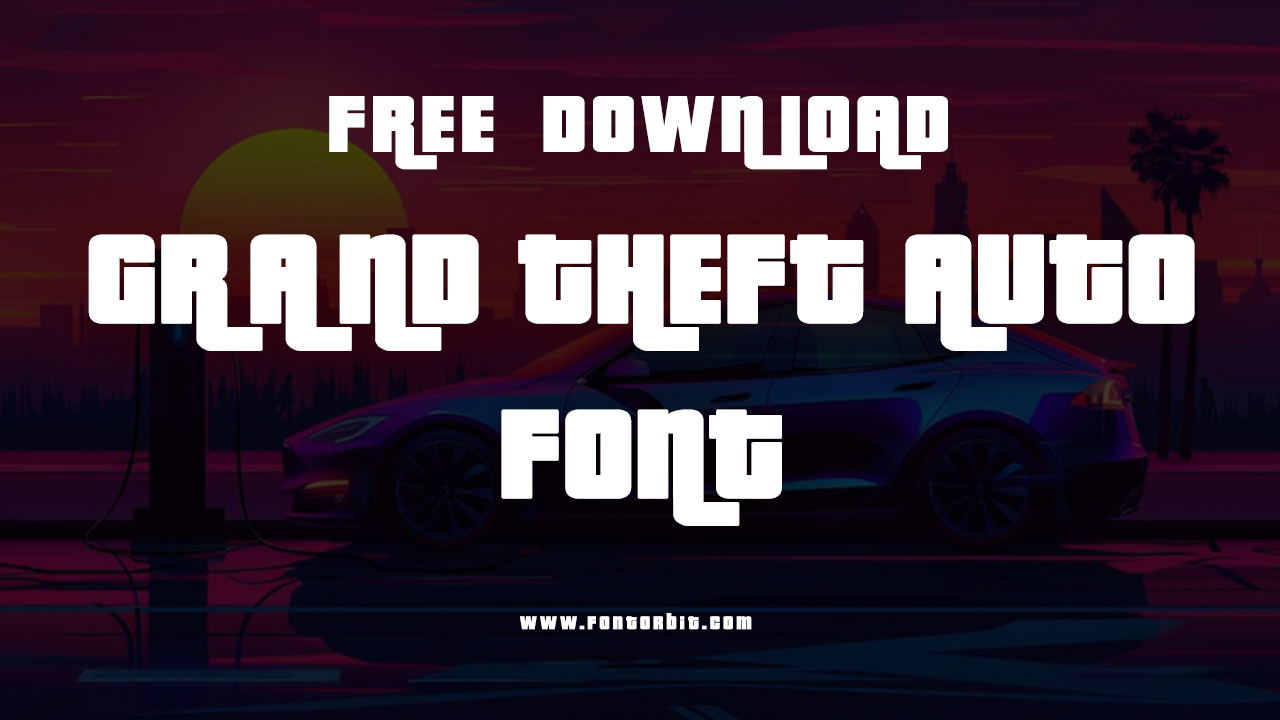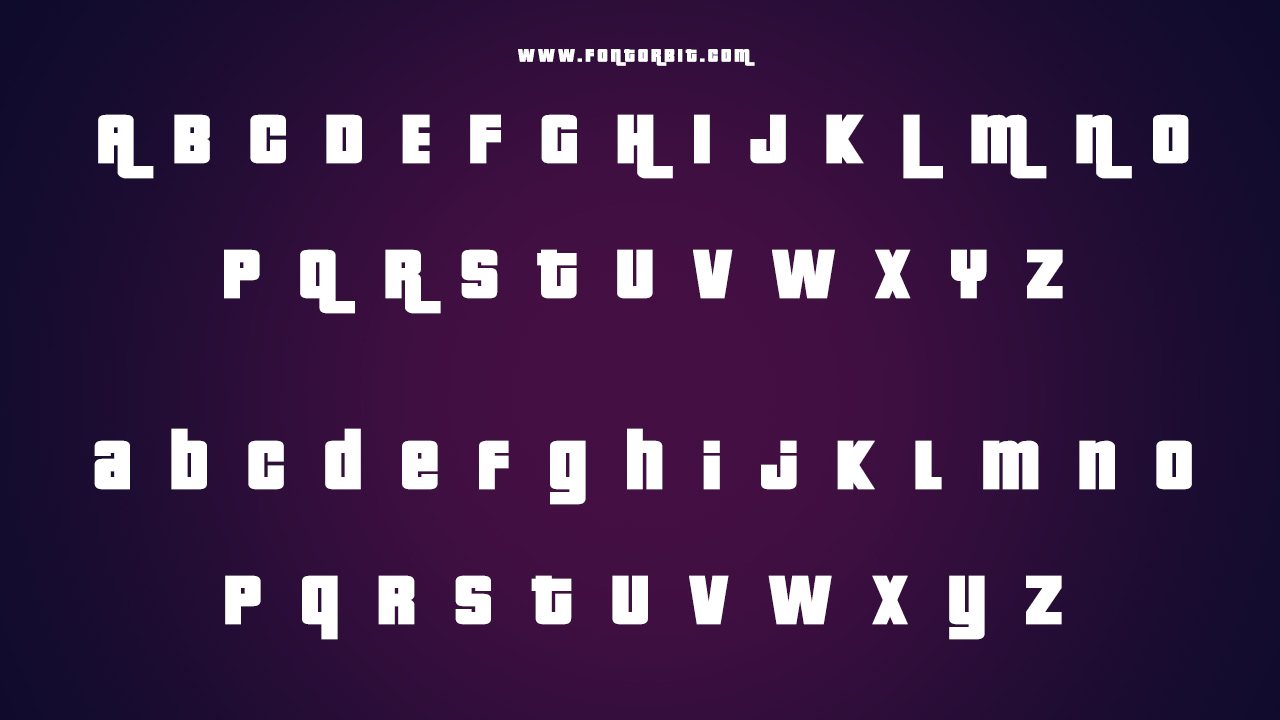
Grand Theft Auto is an iconic action-adventure video game series that first debuted in 1997. Players assume the role of a criminal, freely exploring urban environments and completing various missions like bank robberies and assassinations.
Since Grand Theft Auto III, the series has maintained a consistent logo that features the stacked text “Grand Theft Auto,” closely resembling the Pricedown Black font by Typodermic Fonts.
The Grand Theft Auto font falls under the category of display typefaces and is known for its bold and impactful design. Pricedown is an interpretation of the early 1970s display typeface Pinto Flare and is characterized by its unique geometric shapes. The font family includes:
Pricedown Black
The Grand Theft Auto Font Found In Use
- Game logos
- Merchandise
- Promotional materials
- Branding and advertising
The Grand Theft Auto font, Pricedown, has become a staple in gaming, recognized for its bold and dynamic design. Whether for creating logos, merchandise, or promotional materials, Pricedown Black provides an impactful choice that enhances visual identity.
1.What Are The Characteristics Of Grand Theft Auto Font?
The Grand Theft Auto Font is a bold display typeface featuring geometric shapes, ideal for attention-grabbing designs.
7.What Styles Are Popular In Grand Theft Auto Fonts?
Bold, geometric styles are popular, offering a strong and contemporary look suitable for a variety of gaming applications.